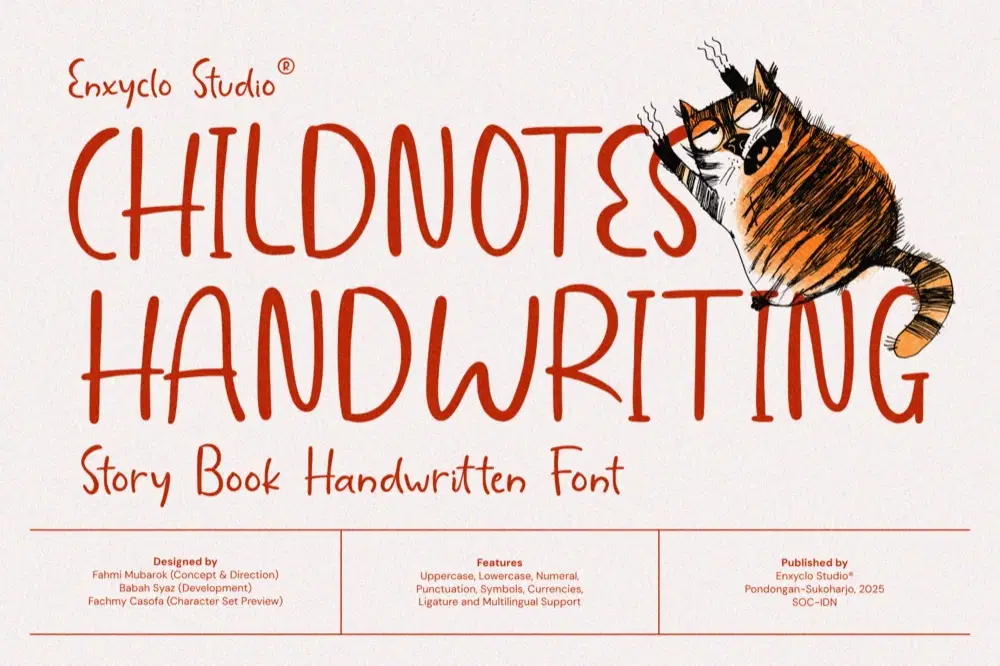
Childnotes Handwriting is a whimsical handwritten font inspired by the magic of storybook adventures and childhood imagination. Its playful curves and friendly strokes capture the warmth of children’s handwriting, making it perfect for fairytale worlds, picture books, and fantasy-inspired designs.
This font brings a sense of wonder and creativity — every letter feels like part of a story waiting to be told. With a soft, approachable feel, Childnotes Handwriting adds charm and personality to every page, poster, or project. Whether you’re illustrating a children’s book, designing a storybook cover, or creating a fantasy-themed project, this font helps your ideas come to life with joy, imagination, and storytelling spirit.
FEATURE
- Uppercase letters
- Lowercase letters
- Punctuation marks
- Symbol set
- Currency symbols
- Ligature
- Multilingual Support
PERFECT FOR
- Children’s storybooks and picture books
- Fairytale or fantasy titles
- Kids’ educational materials and posters
- Story-based branding or packaging
- Book covers and chapter titles
- Quote art and wall prints for kids’ rooms
- Whimsical invitations or greeting cards
- Animation or game titles
- Nursery decor and stationery
- Creative storytelling projects